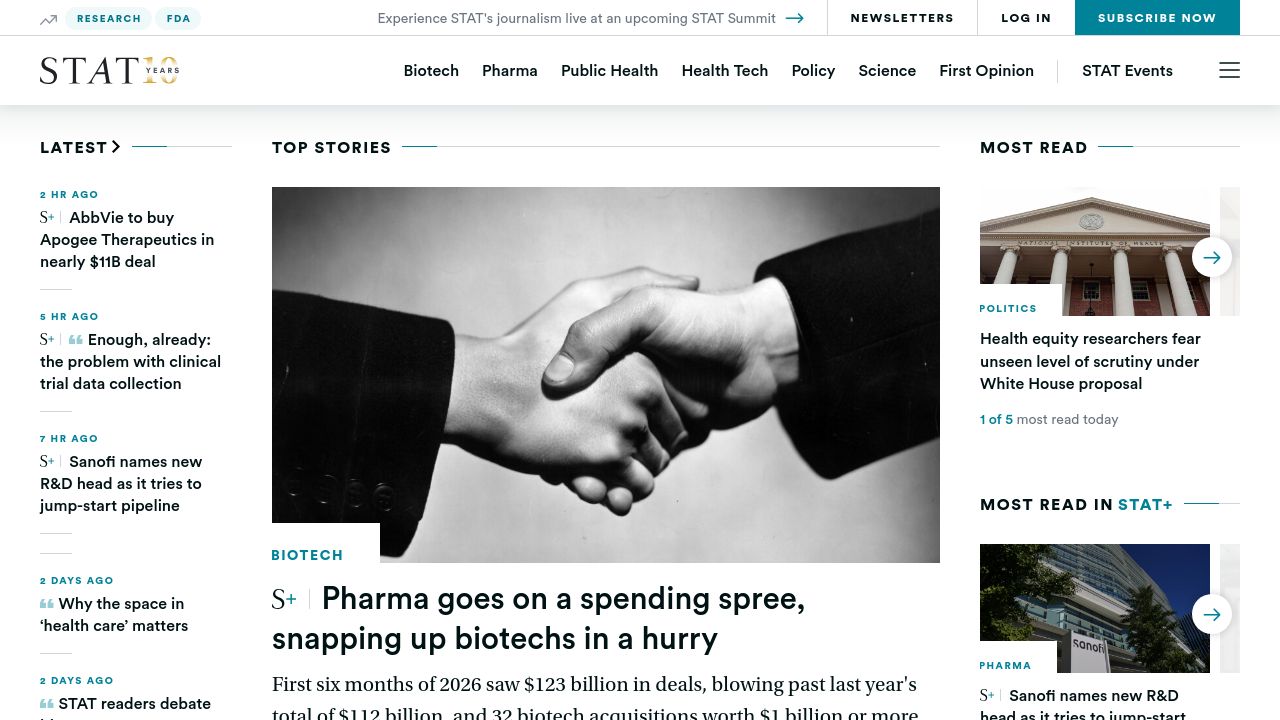
What fonts does Statnews use?
STAT (statnews.com) utilizes a diverse range of fonts that reflect its commitment to clarity and accessibility in health and medicine reporting. The use of Arial for body text ensures readability, while Circular and Utopia add a contemporary touch. Baskerville-eText and FuturaND contribute to a sense of authority and tradition. The inclusion of Font Awesome icons enhances the visual navigation, making complex information easier to digest for a wide audience interested in biotech and life sciences.
Frequently asked questions about Statnews.com's fonts
What fonts are used on statnews.com?
STAT employs several fonts including Arial, Circular, Utopia, Baskerville-eText, and FuturaND, along with various Font Awesome styles for icons.
How do the fonts on statnews.com compare to alternatives?
Arial offers a straightforward alternative for readability, while Circular and Utopia provide a more modern aesthetic compared to traditional serif fonts like Times New Roman.
What styles and weights are used in the typography of statnews.com?
STAT primarily uses weights of 400 for Arial, Circular, Utopia, and Baskerville-eText, with FuturaND at weight 500, and Font Awesome icons at weights 400 and 900.